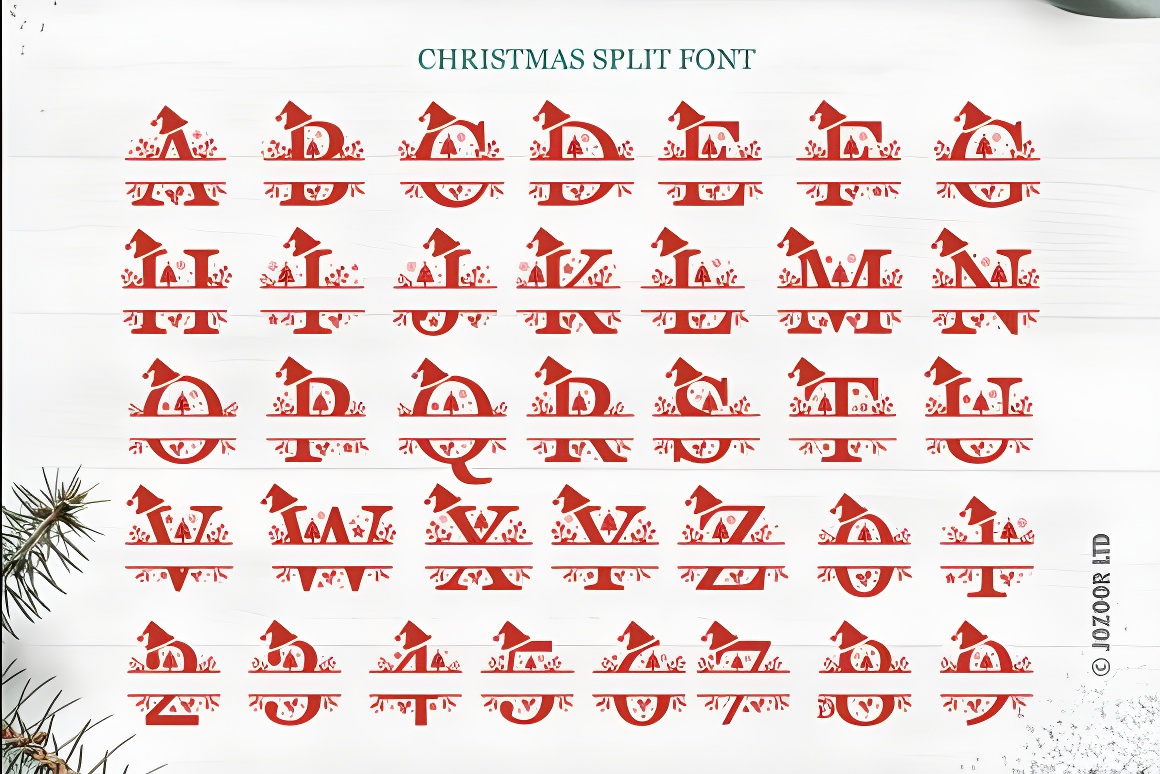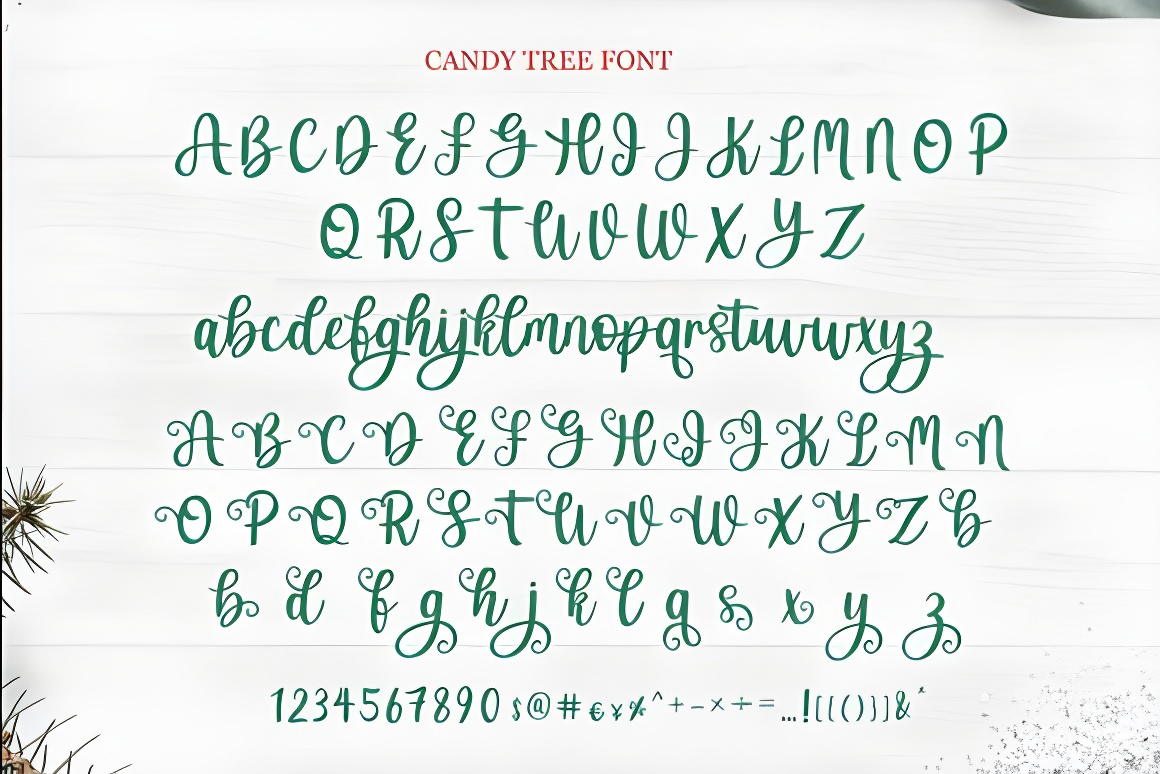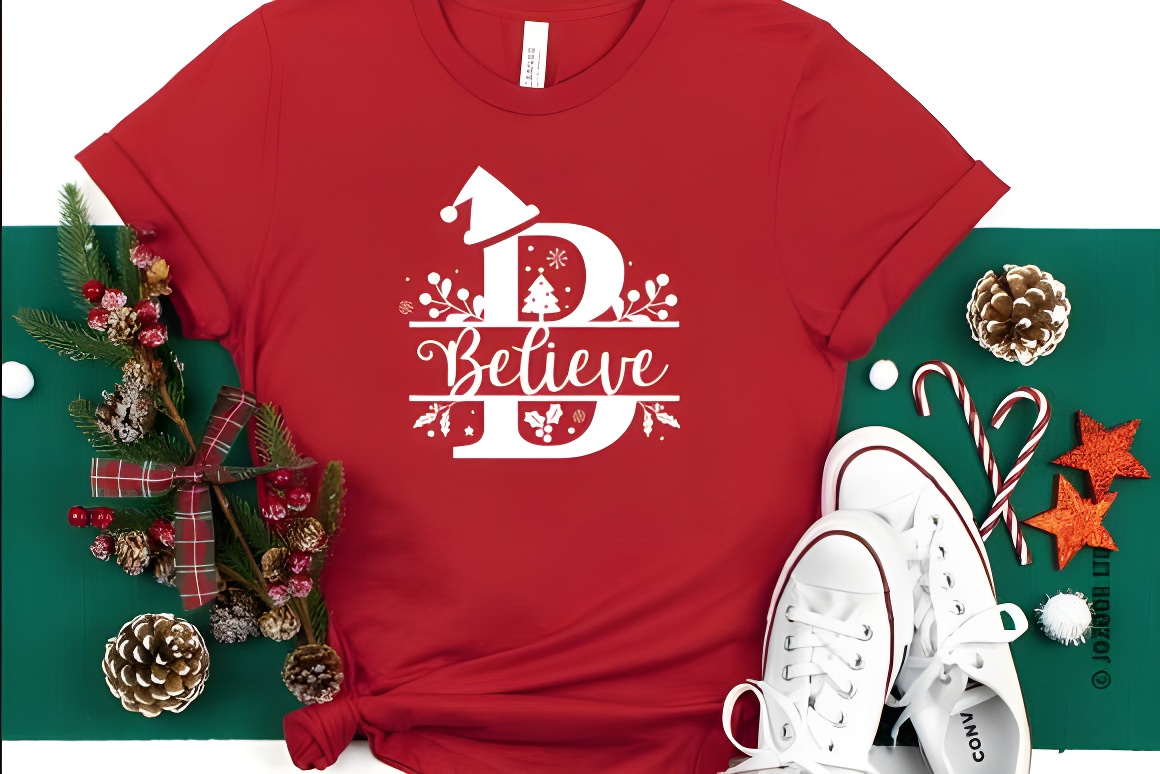
Madison Christmas Monogram Font Duo - Script & Decorative Split Design
Festive Christmas duo font featuring script & decorative split styles. Perfect for holiday SVG designs, shirts, farmhouse decor, crafts. PUA encoded for easy access to glyphs & swashes!